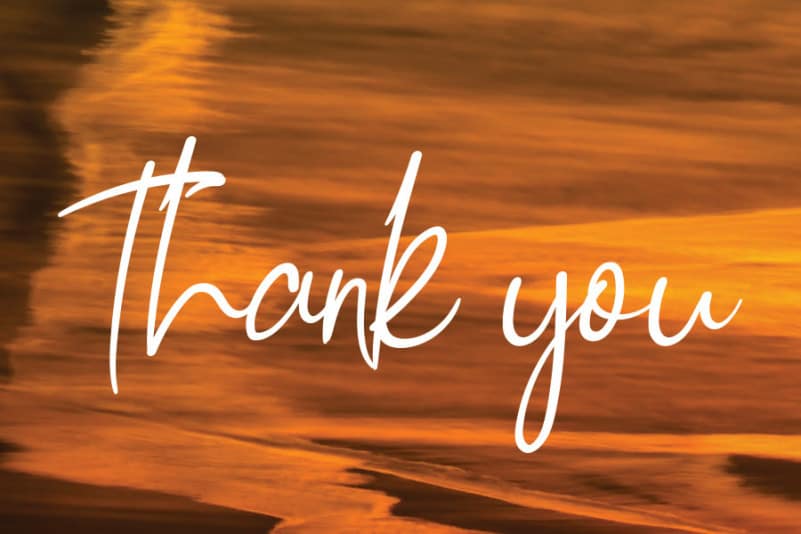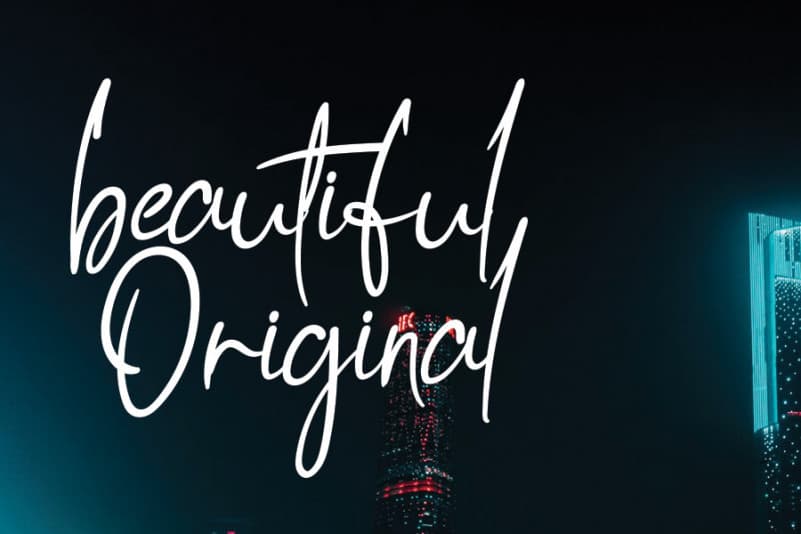
Hollmtudio Handwritten Font
Hollmtudio Handwritten Font is a relaxed and distinct handwritten font. Fall in love with its incredibly versatile and authentic style and use it to create gorgeous wedding invitations, beautiful stationary art, eye-catching social media posts, and much more!
The latest style letters are perfect for wall displays, wedding invitations, social media post logos, advertisements, product packaging, product designs, labels, photography, watermarks, invitations, stationery, and any project that requires taste handwriting.